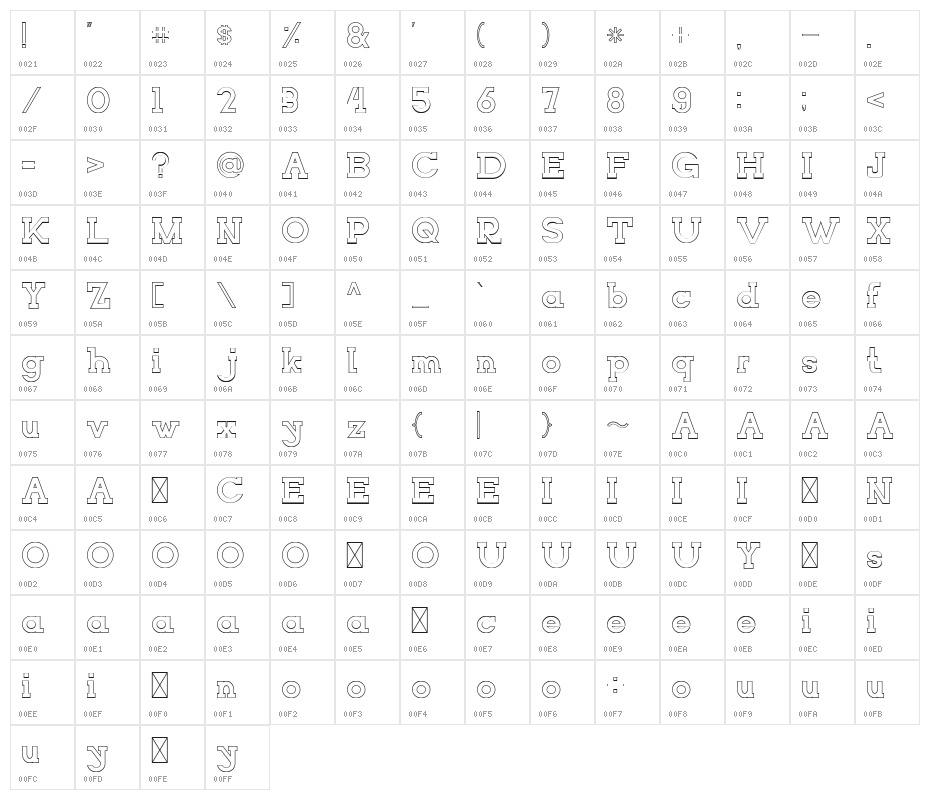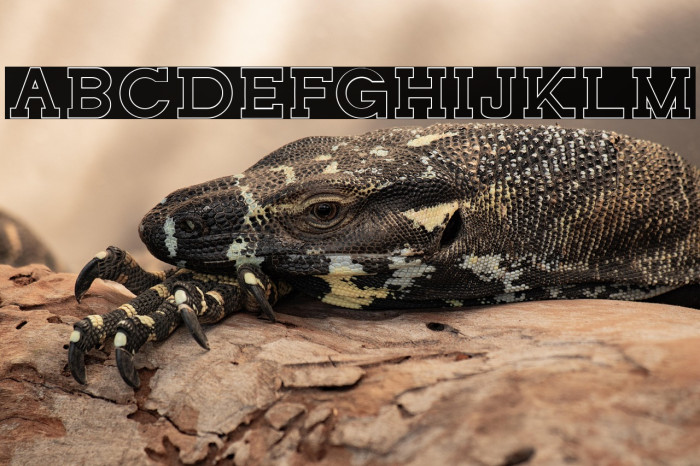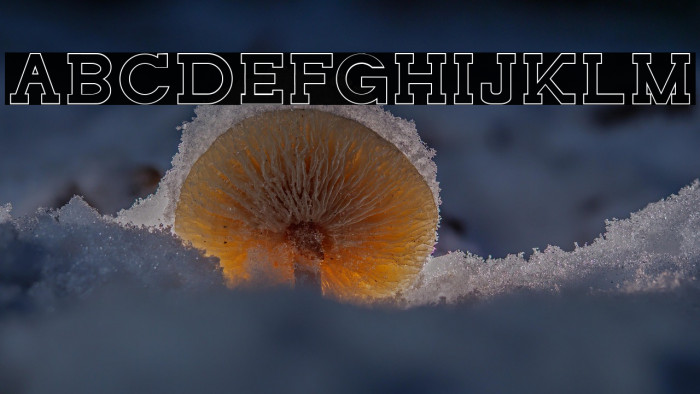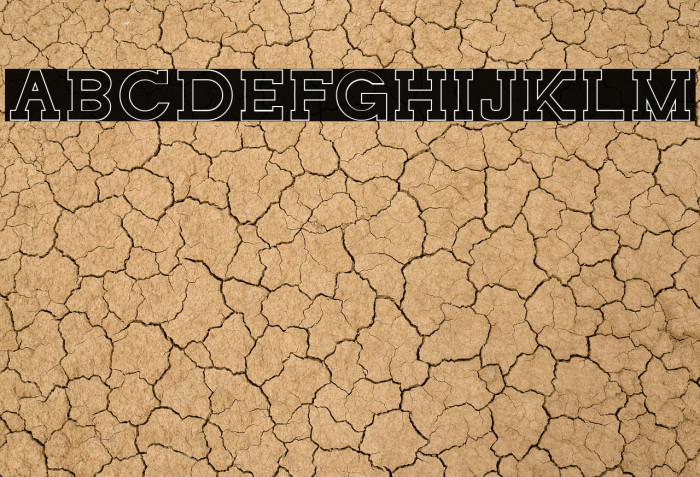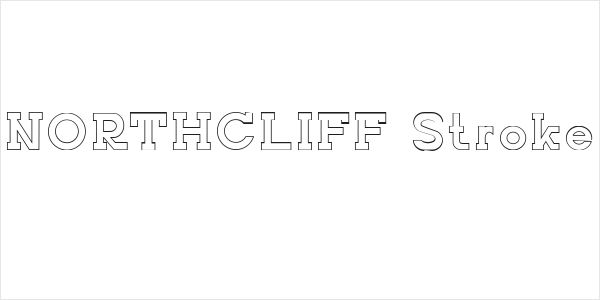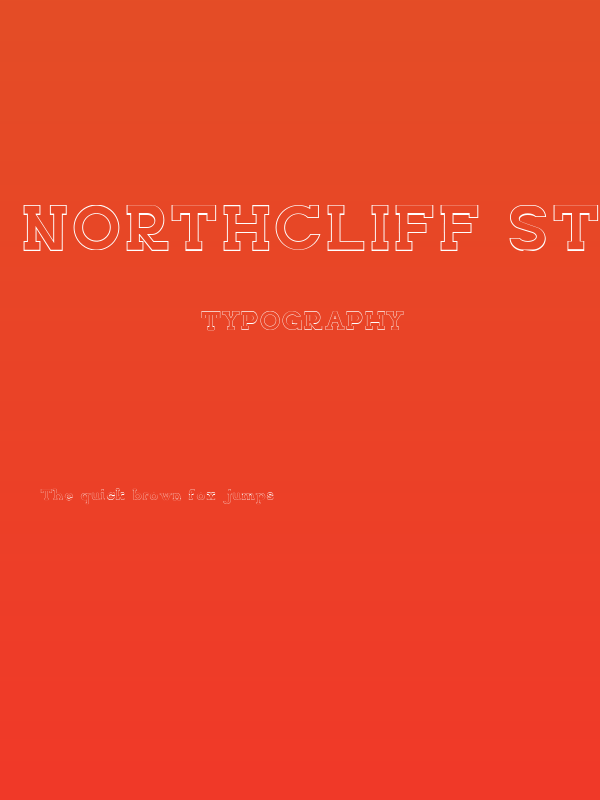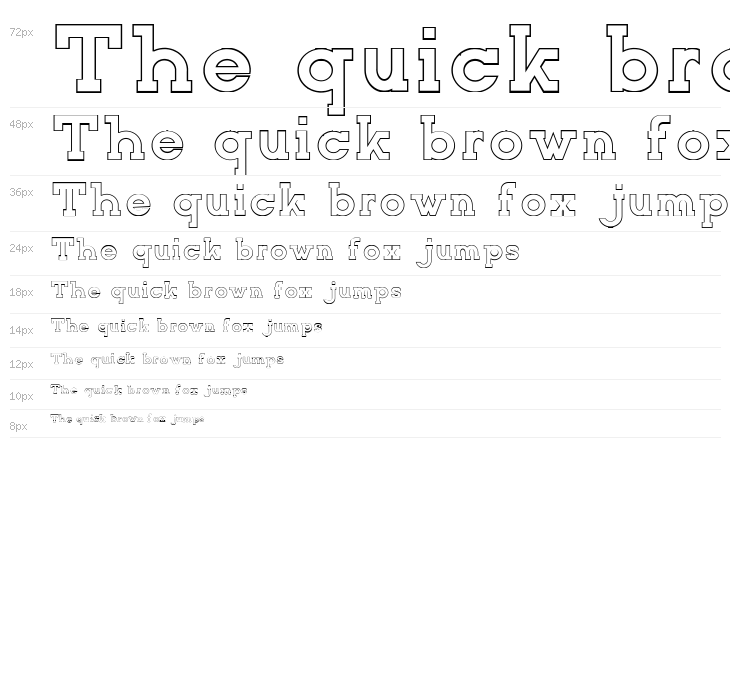
NORTHCLIFF Stroke Font
NORTHCLIFF Stroke Description
This font features a bold, outlined style with a classic serif structure. The uppercase and lowercase letters maintain a consistent stroke width, giving it a uniform appearance. The numerals and special characters follow the same design, ensuring cohesion across all elements. The serifs are pronounced, adding a touch of elegance and formality. The overall look is clean and structured, making it suitable for various design applications where clarity and impact are desired.
Overall StyleClassic
Proposed ProjectsIdeal for headlines, posters, branding materials, and any design project requiring a strong, impactful typeface.